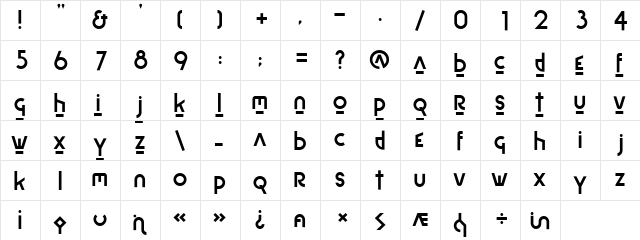
P22Bayer Regular
Design Context for P22Bayer Typeface
P22Bayer takes a measured approach to typography — its balanced proportions and neutral character make it a reliable workhorse for both digital and print work.